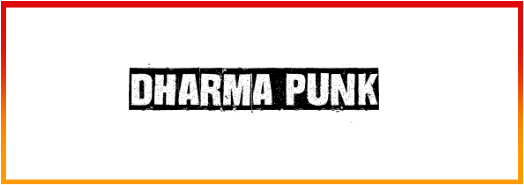
Dharma Punk
Dharma Punk is a fancy font (2015). It's a decorative display font with plenty of personality, made to grab attention. It's a free download, and you can try it with your own text in the preview above first.
You get every letter from A to Z in both cases and all the numbers from 0 to 9, which means Dharma Punk can handle full sentences, dates and prices. Everyday marks like &, !, ? and @ are there too. Thanks to its accented letters, it also works for Spanish, French, German, Portuguese and Italian, not just English. On top of that, it includes Greek and Cyrillic characters.
Think of Dharma Punk for posters, logos and eye-catching headlines. The file has no kerning data, so in logos and big titles check pairs like AV, To and Wa and tighten the spacing by hand. Use it for one standout word or headline and let simpler fonts handle the rest.
Yes. Dharma Punk includes the accented letters needed for Spanish, French, German, Portuguese and Italian, so it works for more than just English.